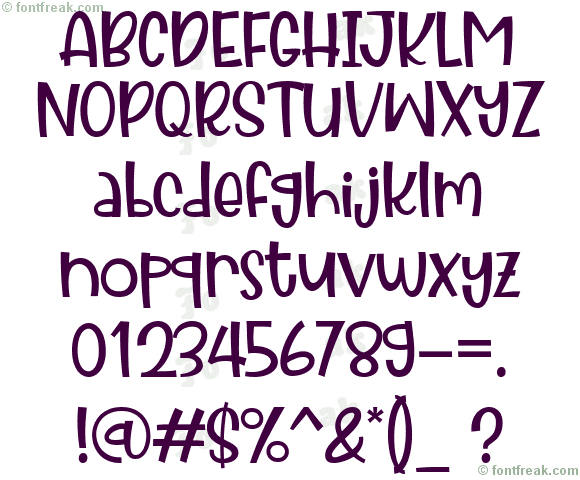
Jolly Rainbow
The Jolly Rainbow font, created by Situjuh Nazara, is a delightful display typeface that exudes a playful and whimsical charm. Characterized by its rounded, bold strokes and a lively demeanor, this font falls under the decorative category, making it perfect for projects that aim to capture attention and evoke a sense of fun. The letterforms are slightly irregular, lending an organic feel to the typeface, while maintaining a consistent stroke weight that ensures readability. The spacing between characters is ample, allowing for clear legibility even at smaller sizes.
This vibrant font is exceptionally versatile and can be used in a variety of creative applications. For instance, it's an excellent choice for children's book covers, where its cheerful aesthetic can attract young readers. Additionally, Jolly Rainbow works wonderfully for birthday party invitations, bringing a festive spirit that complements celebratory themes. Its playful character makes it ideal for restaurant menus, particularly those targeting a family-friendly audience, where a light-hearted approach can enhance the dining experience. Event posters, especially for festivals or community gatherings, can also benefit from the engaging style of this font.